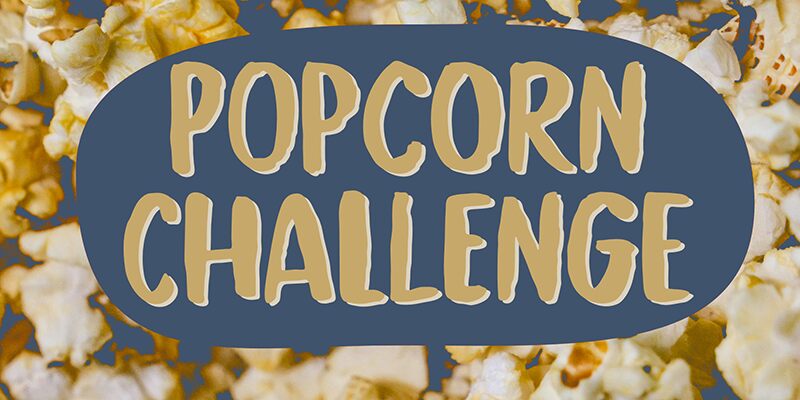
Popcorn Challenge font by Hanoded is a brush typeface with a youthful appeal and retro-inspired style. The letters present a casual, modern look with rounded edges, textured effect, and handcrafted appearance. Designed as an all-caps font in 2 variations for each letter, this typeface is here to bring simplicity to your paragraphs and headings when used.
This unique brush font will work seamlessly in all kinds of graphic design projects: packaging design, posters, concert tickets, covers for electronic records or cassette tapes, children’s book covers and stories typography inside them. The free typeface can also be handy when used in social media or web page heading texts.